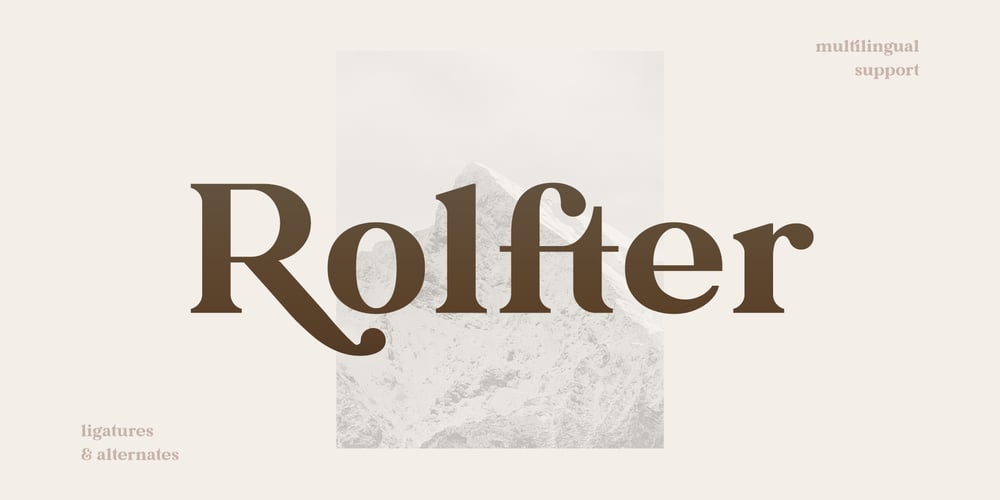
Rolfter
Rolfter font
Rolfter Font Family was designed by Richard Postelnicu and published by AlienValley. Rolfter contains 1 styles and family package options. Introducing Rolfter, a classic serif typeface with many features including ligatures, tons of alternates and multilingual support. All the ligatures and alternates can be accessed by installing just one font file.LIGATURES & CONTEXTUAL ALTERNATESWe recommend that you turn on both ligatures and contextual alternates for best results. You can do this in either Photoshop or Illustrator. Photoshop: Open the “Character” panel via Window – Character and check the standard ligatures and contextual alternates icons at the bottom left corner of the panel. Illustrator: Open the “OpenType” panel via Window – Type – OpenType and also check the standard ligatures and contextual alternates at the bottom of the panel. OPTIONAL ALTERNATESThese are optional alternates that can be used depending on your current design. We recommend moderate use of these for optimal results as using too many can easily make the font unreadable. To access these you need to open the following panels depending on your software: Photoshop: Window – Glyphs (Note that this panel may not be available in earlier PS versions) Illustrator: Type – Glyphs You will then have access to all the glyphs inside the font file to use them as you like.